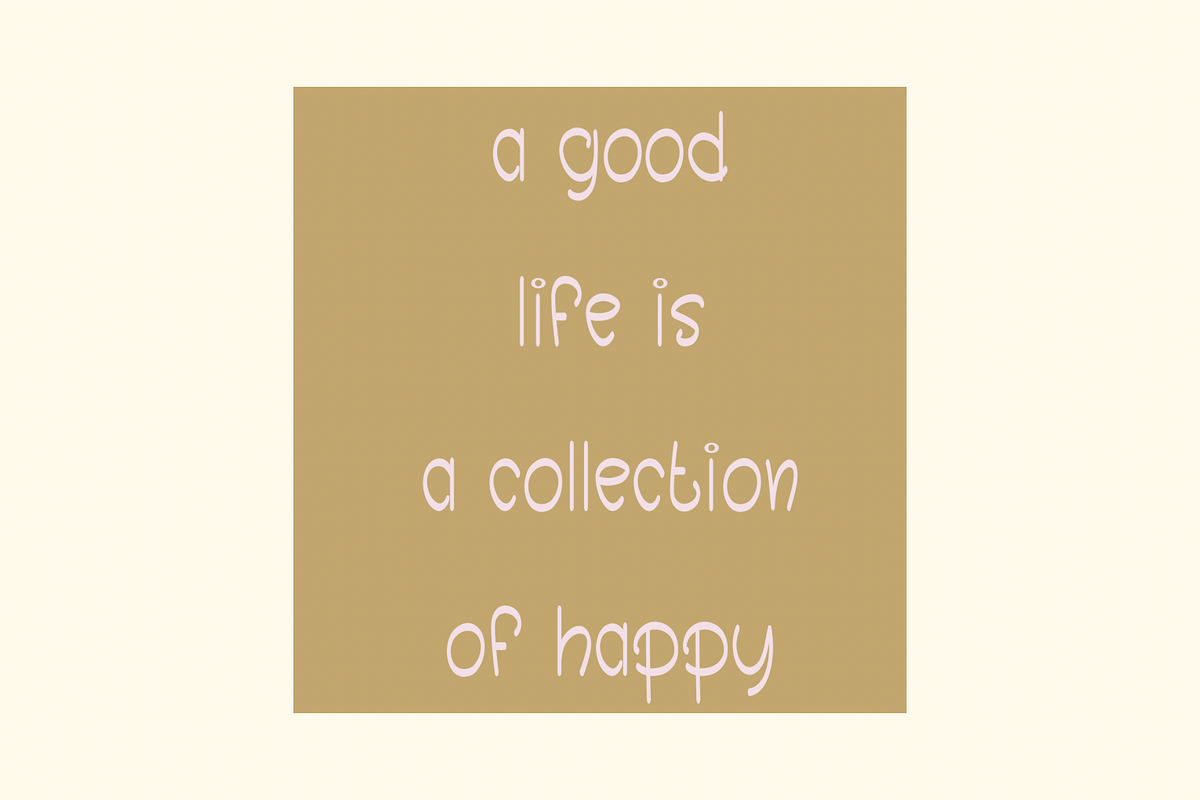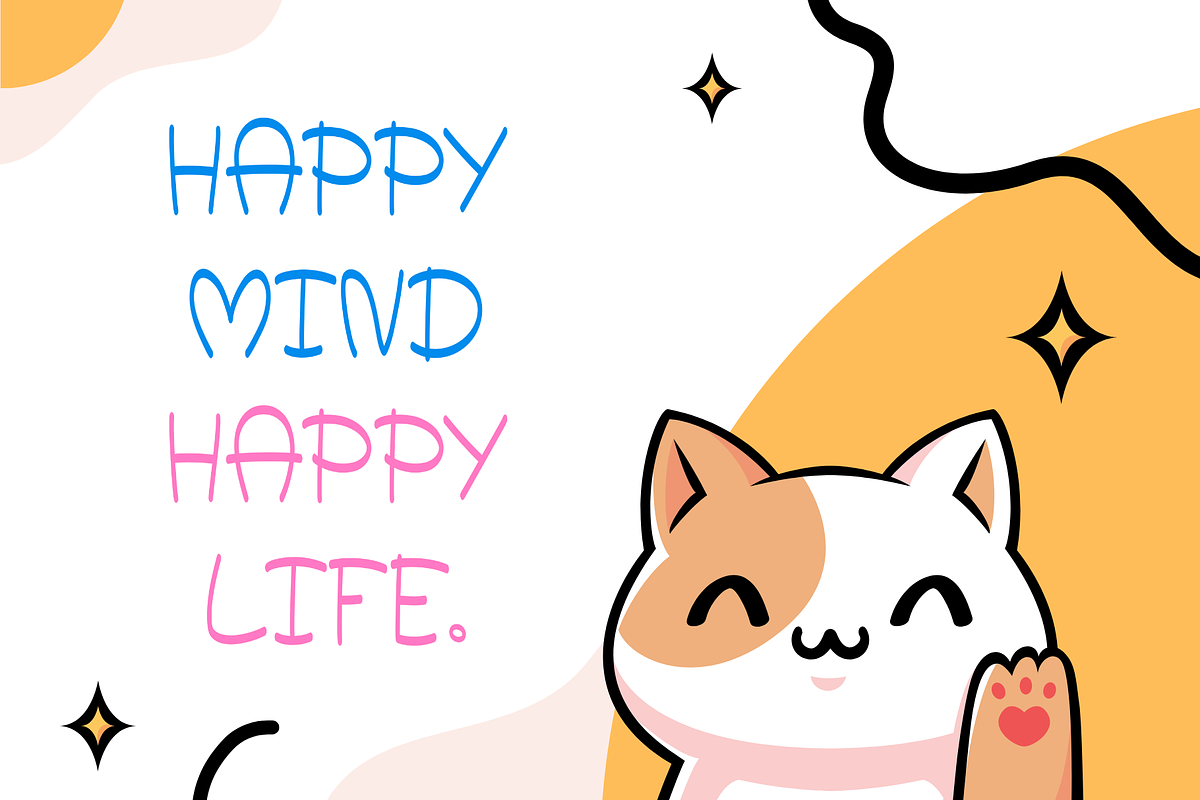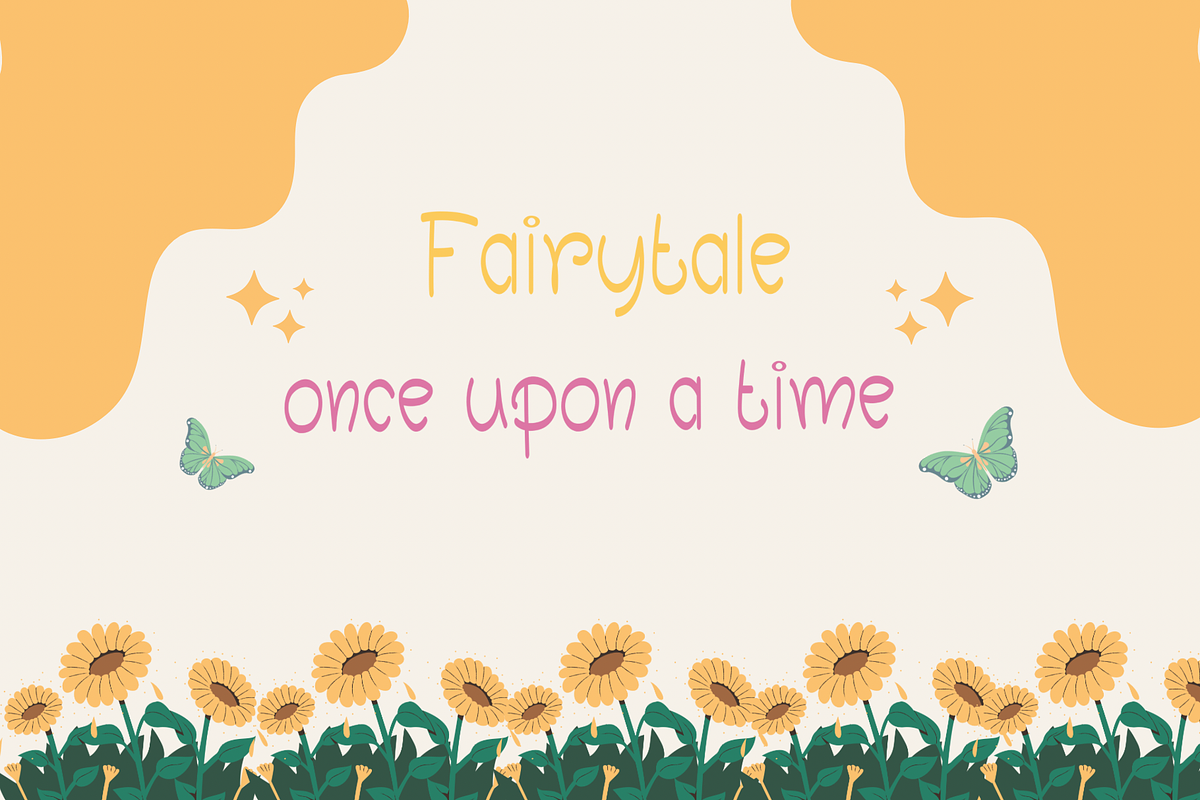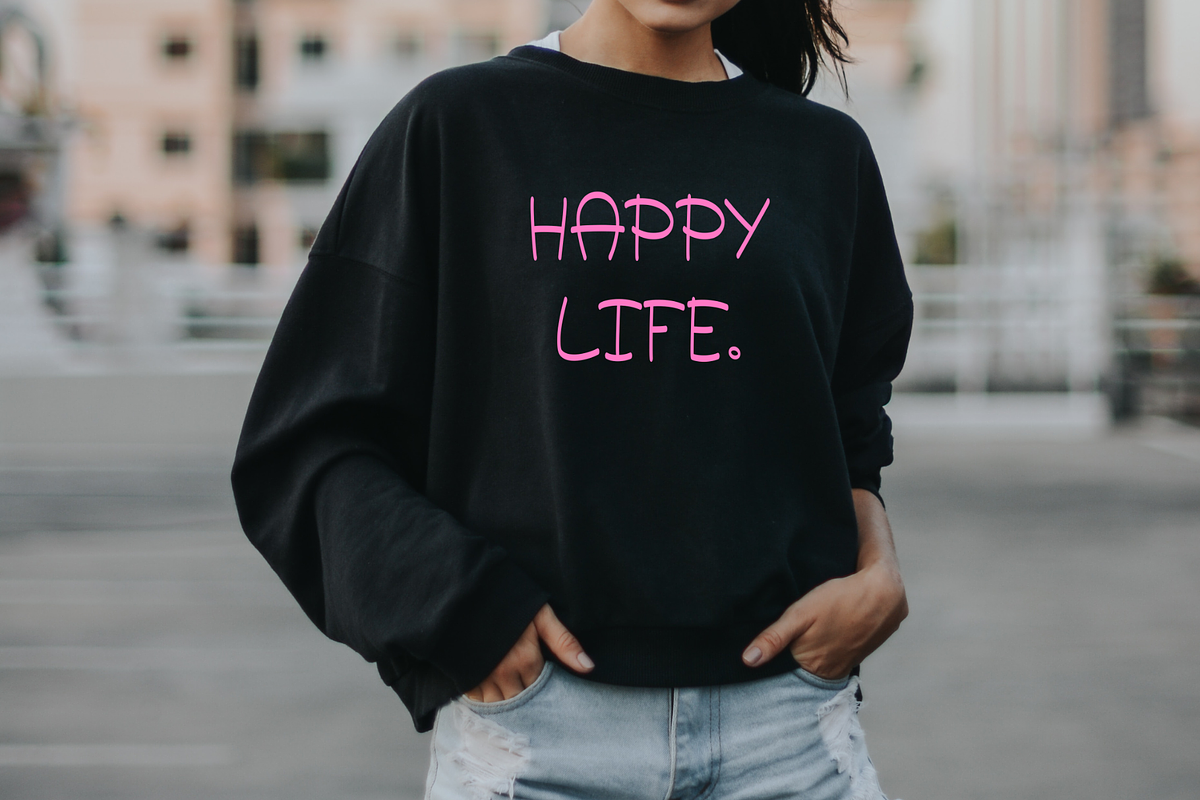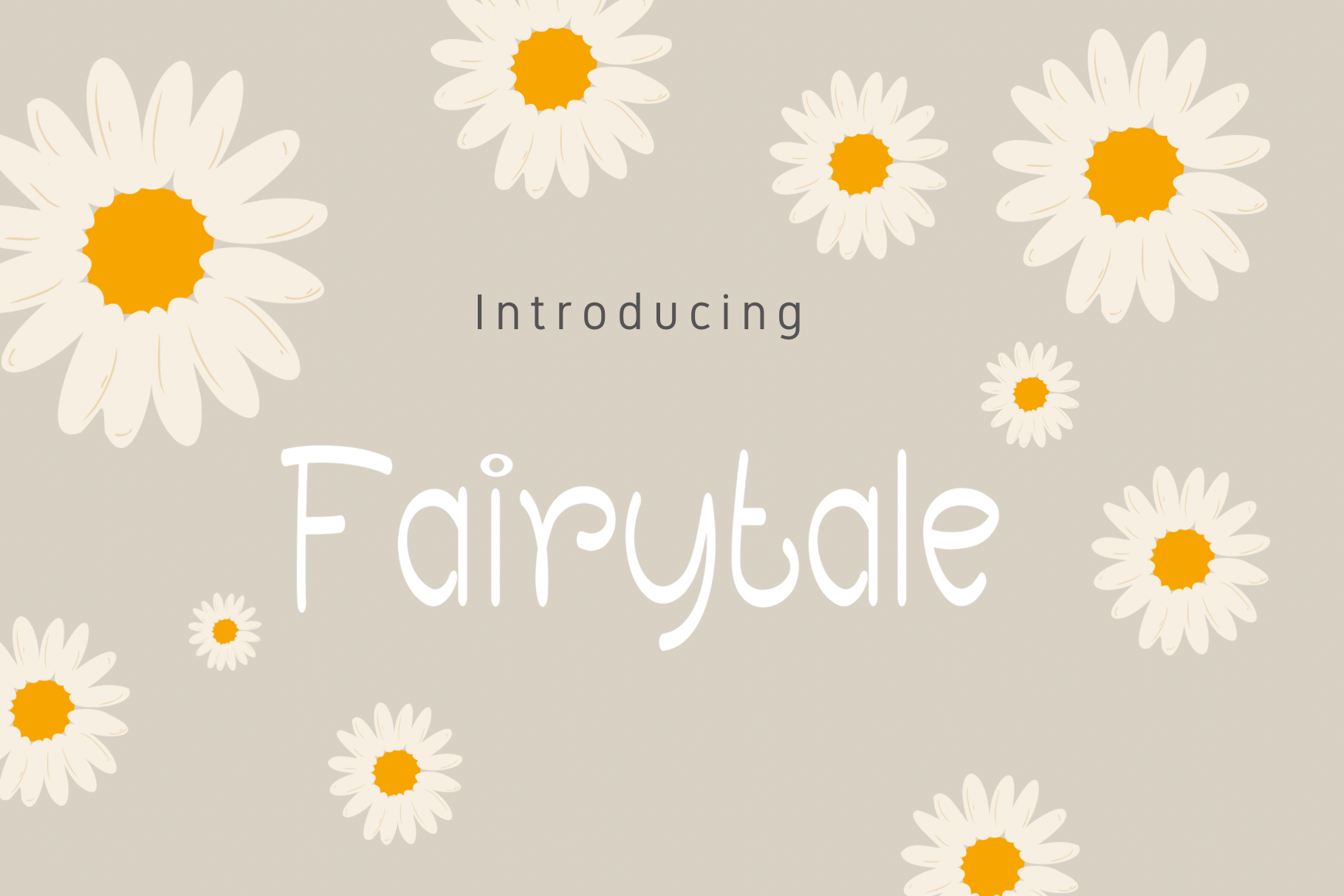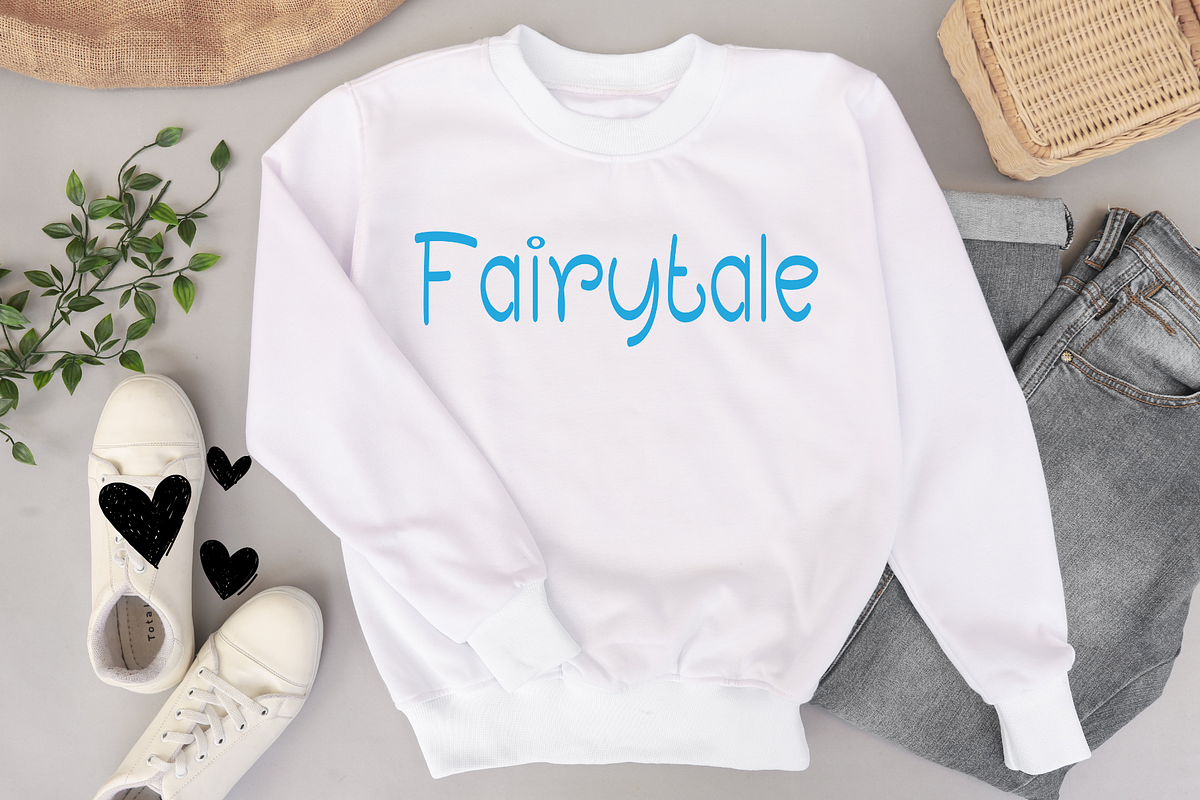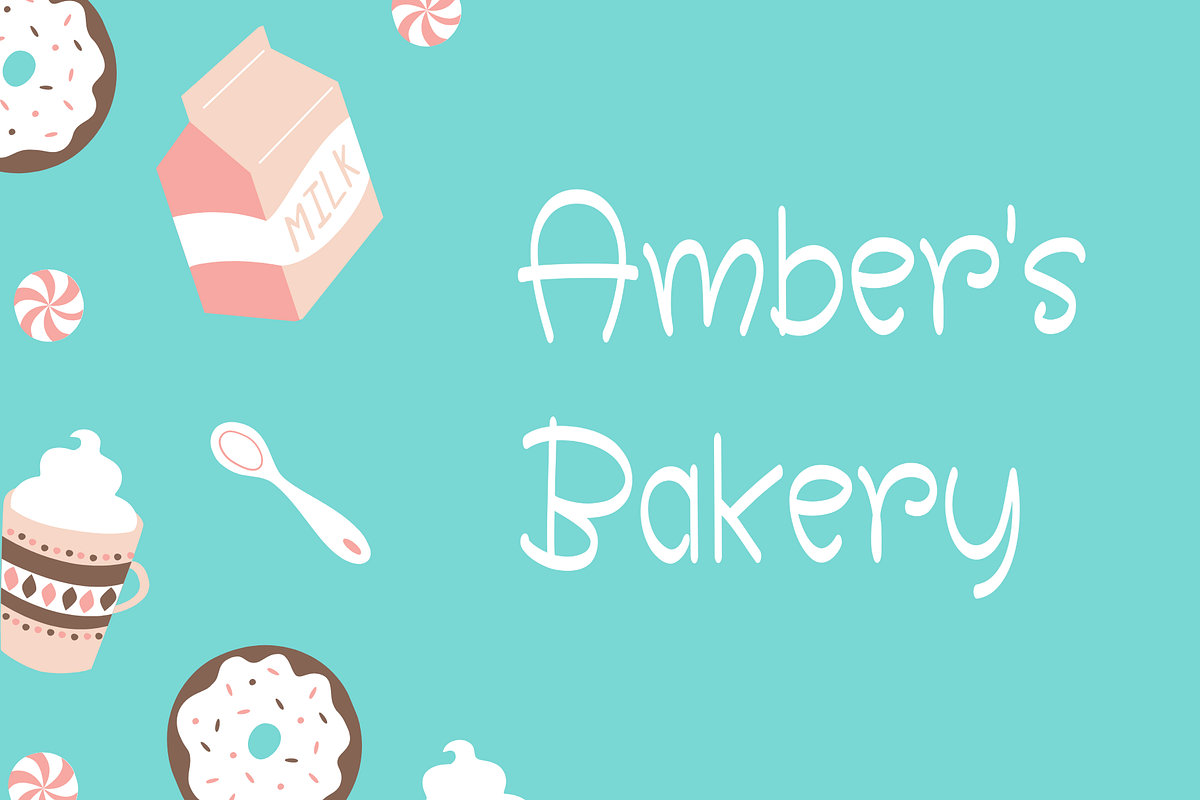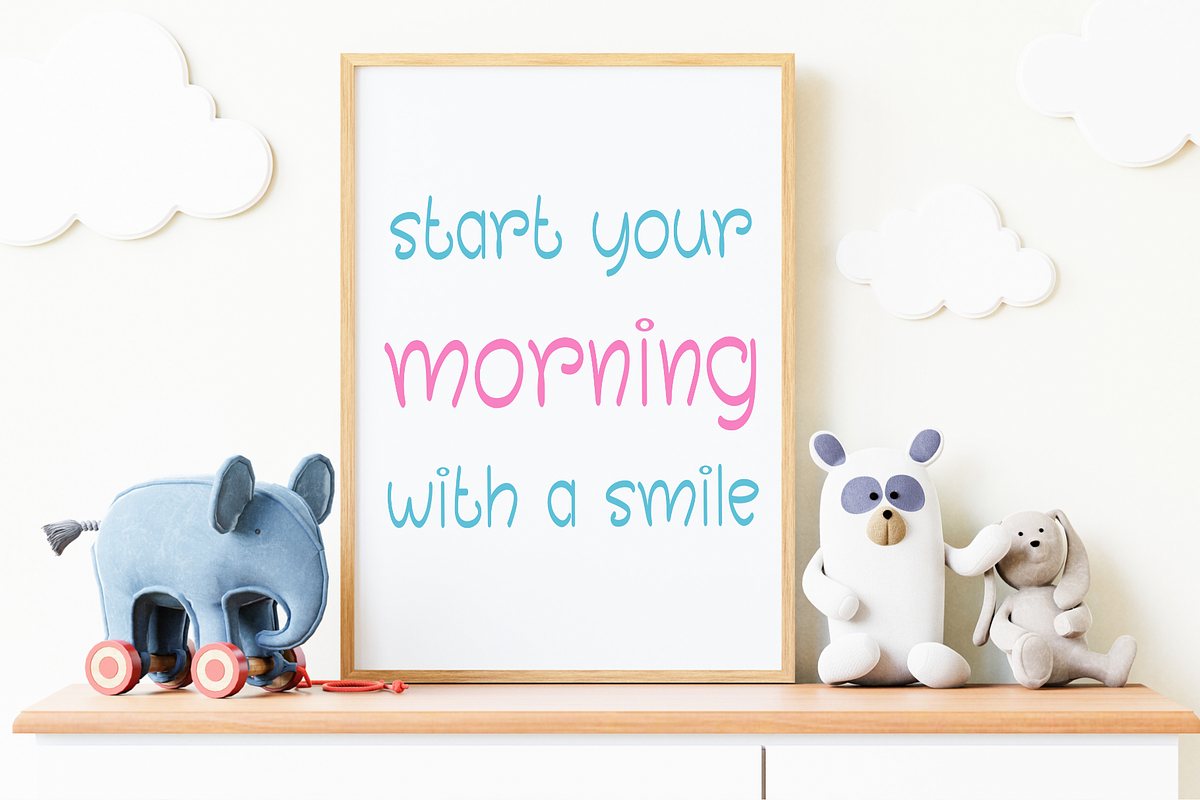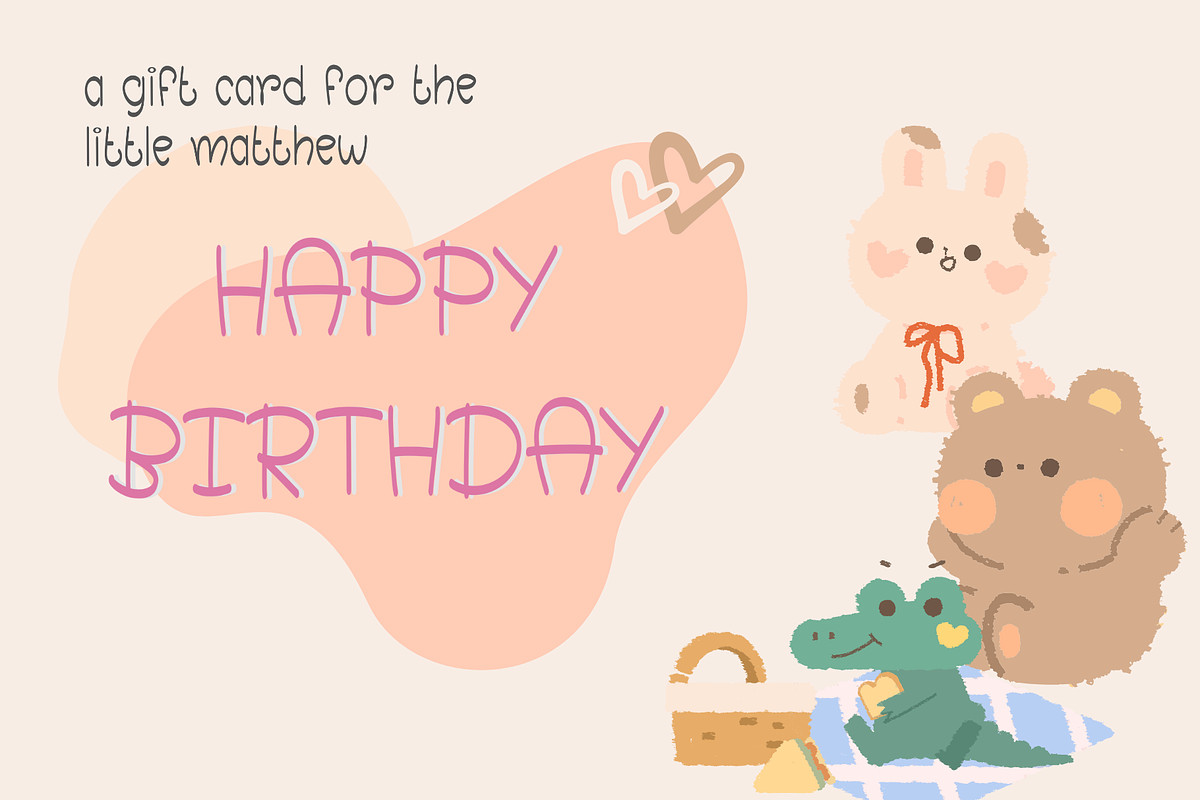
Fairytale Font
Fairytale is a cute and groovy handwritten display font suitable for designing T-shirts, tote bags, hats, stickers, wedding invitations, logos, cards, quotes, and more! Groovy will make any creative idea stand out and stunning!